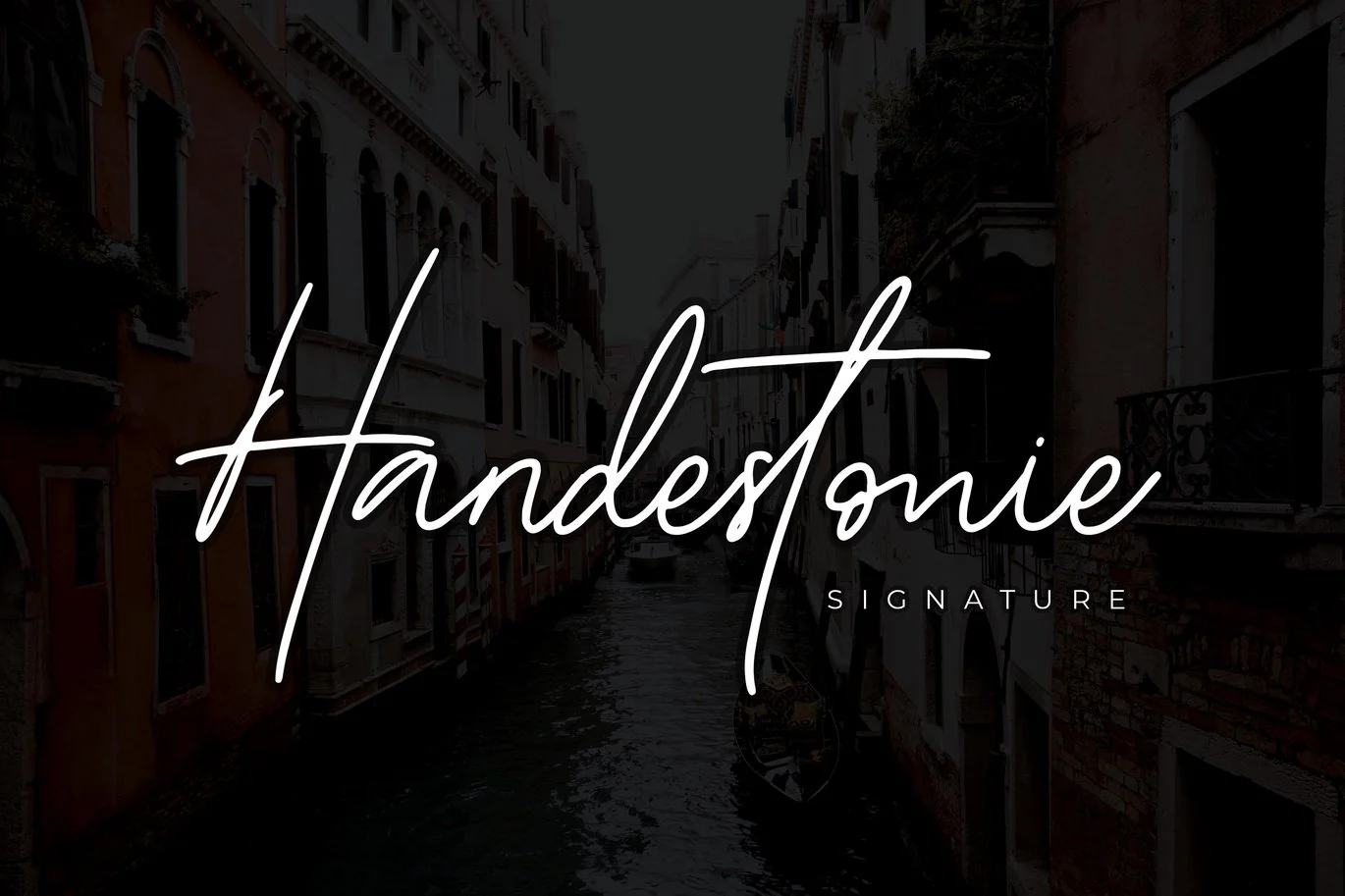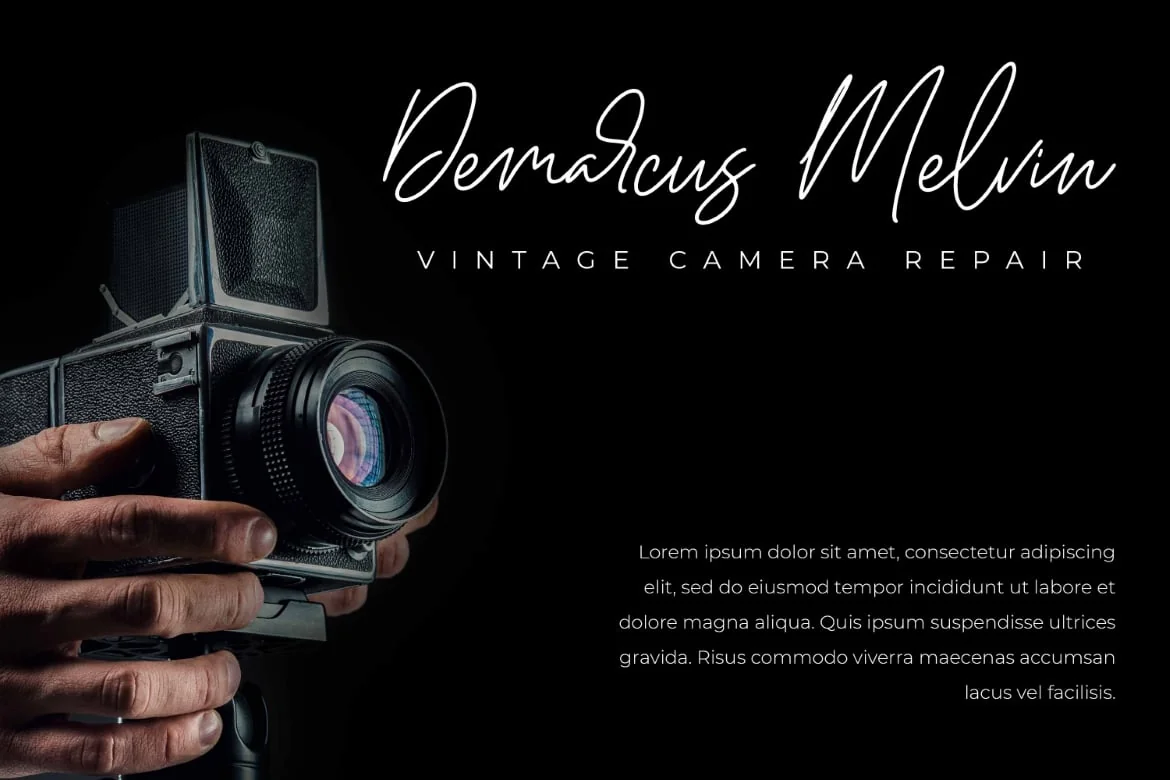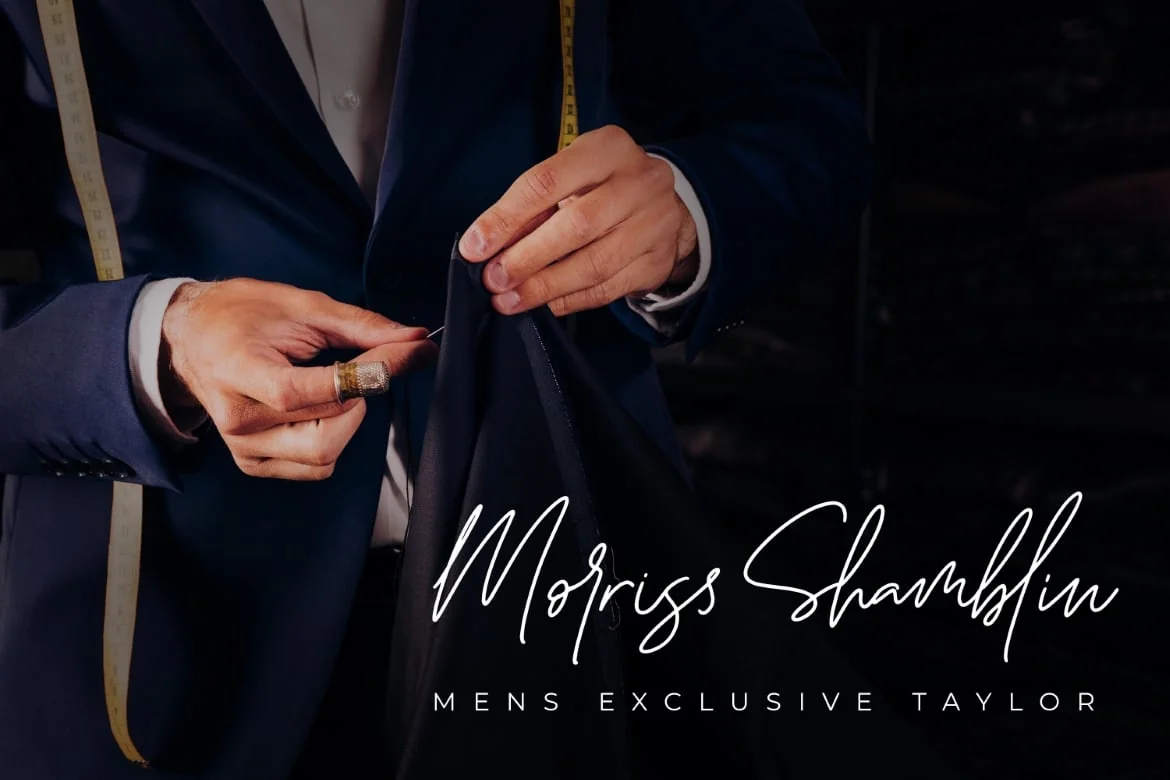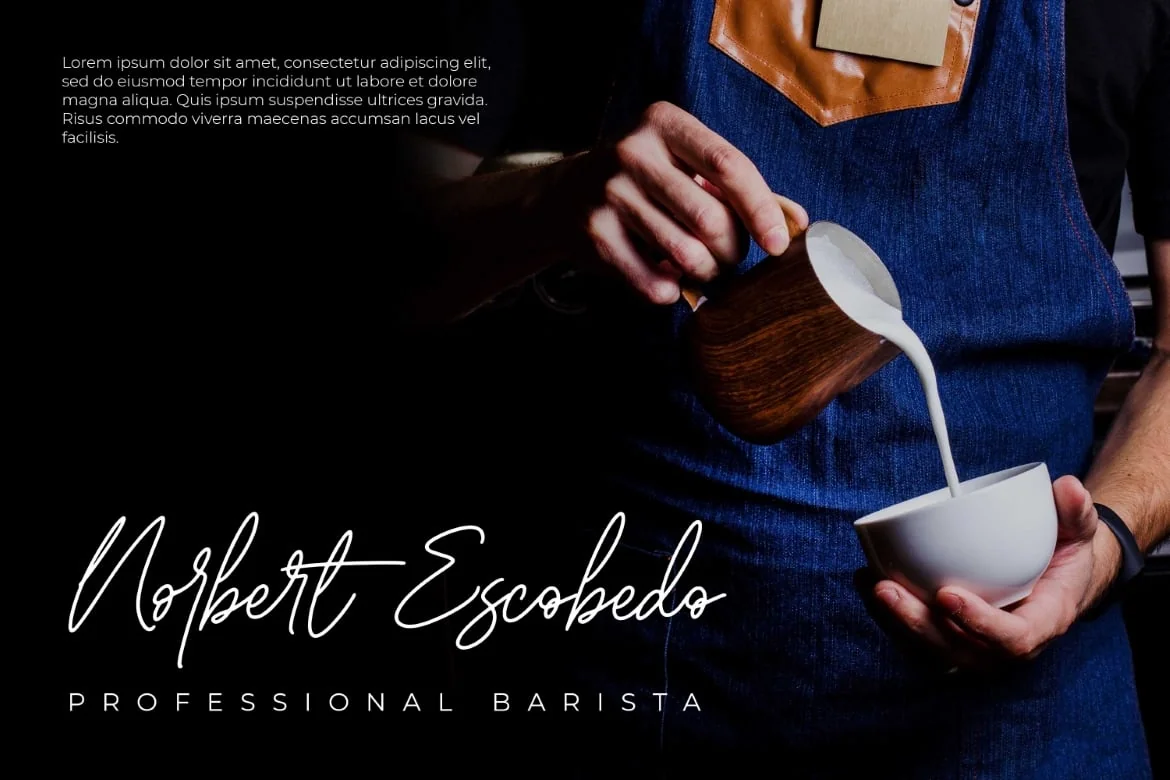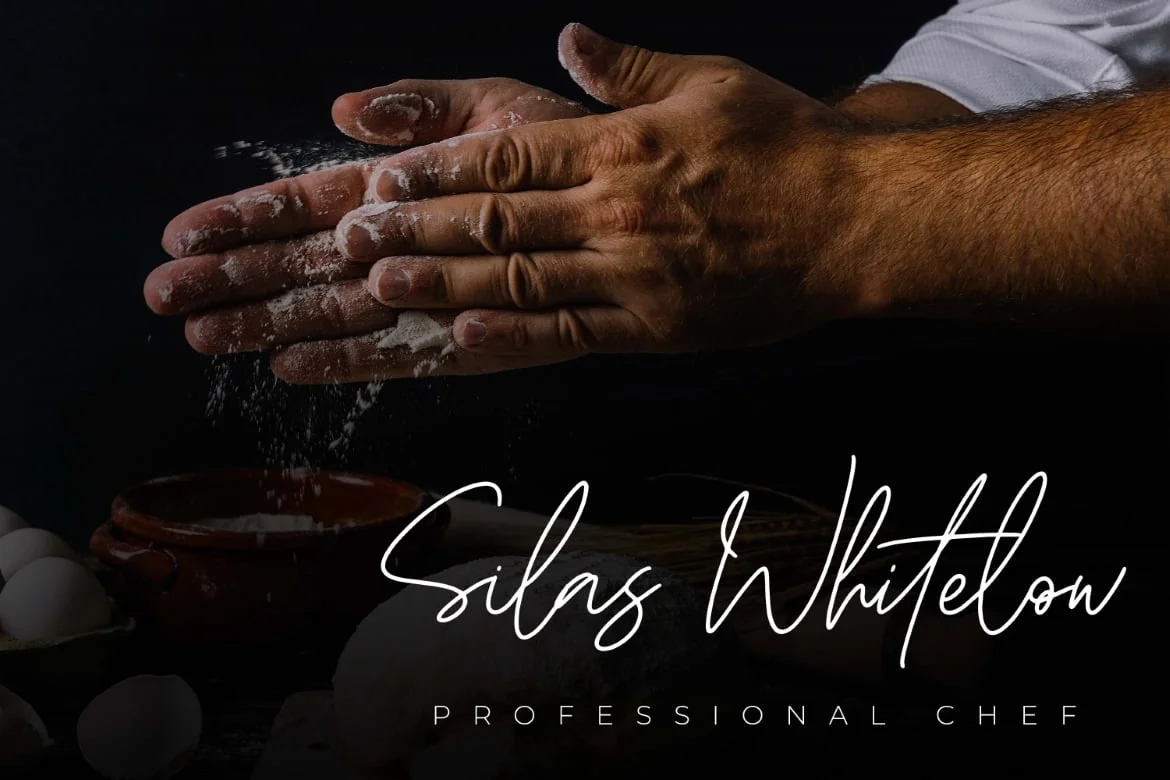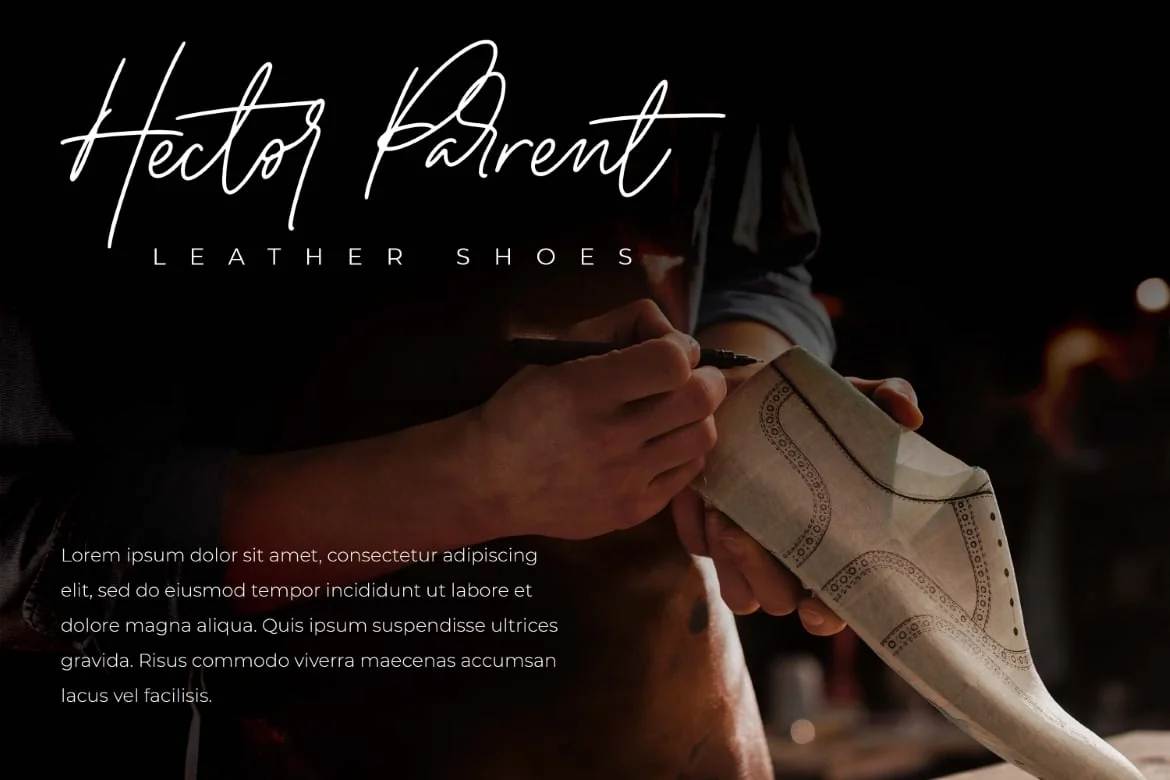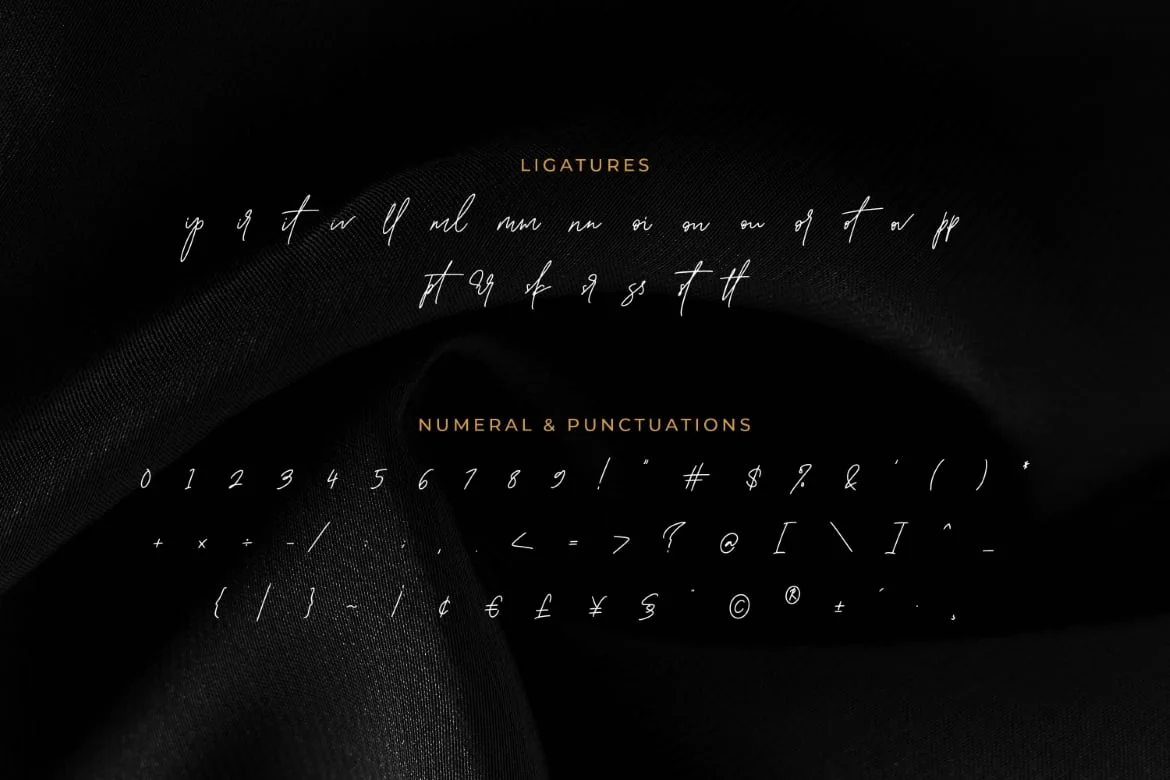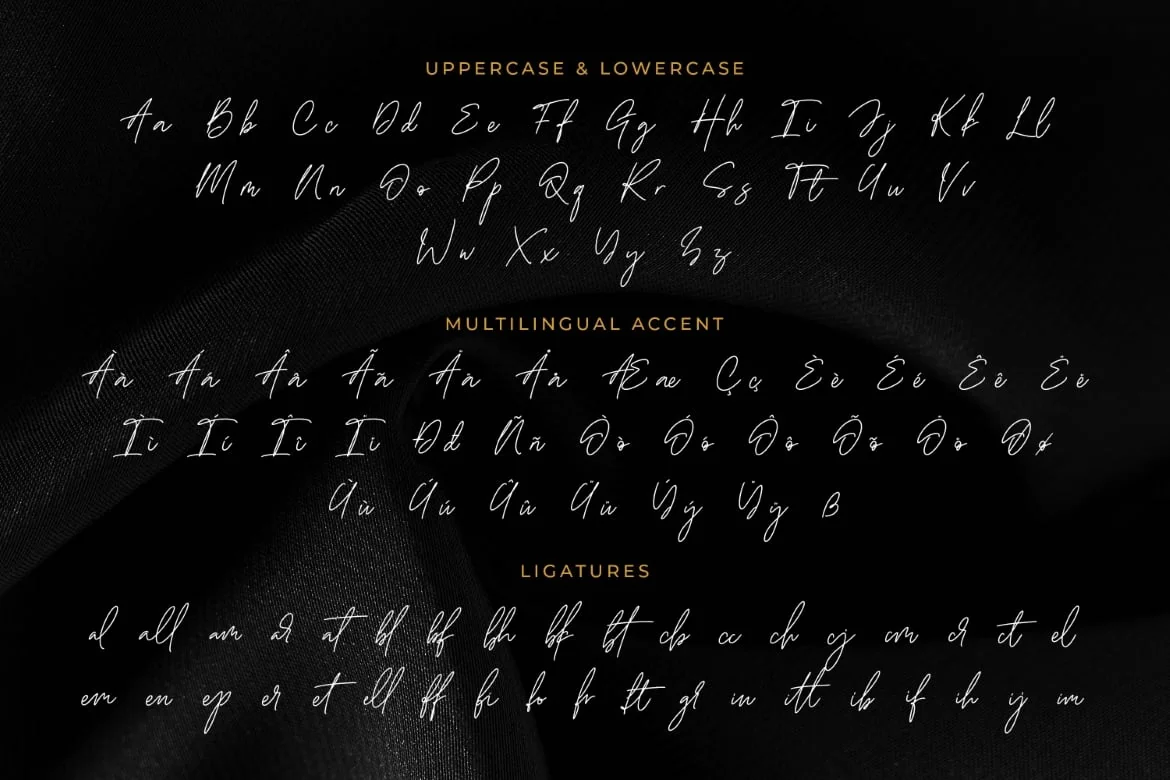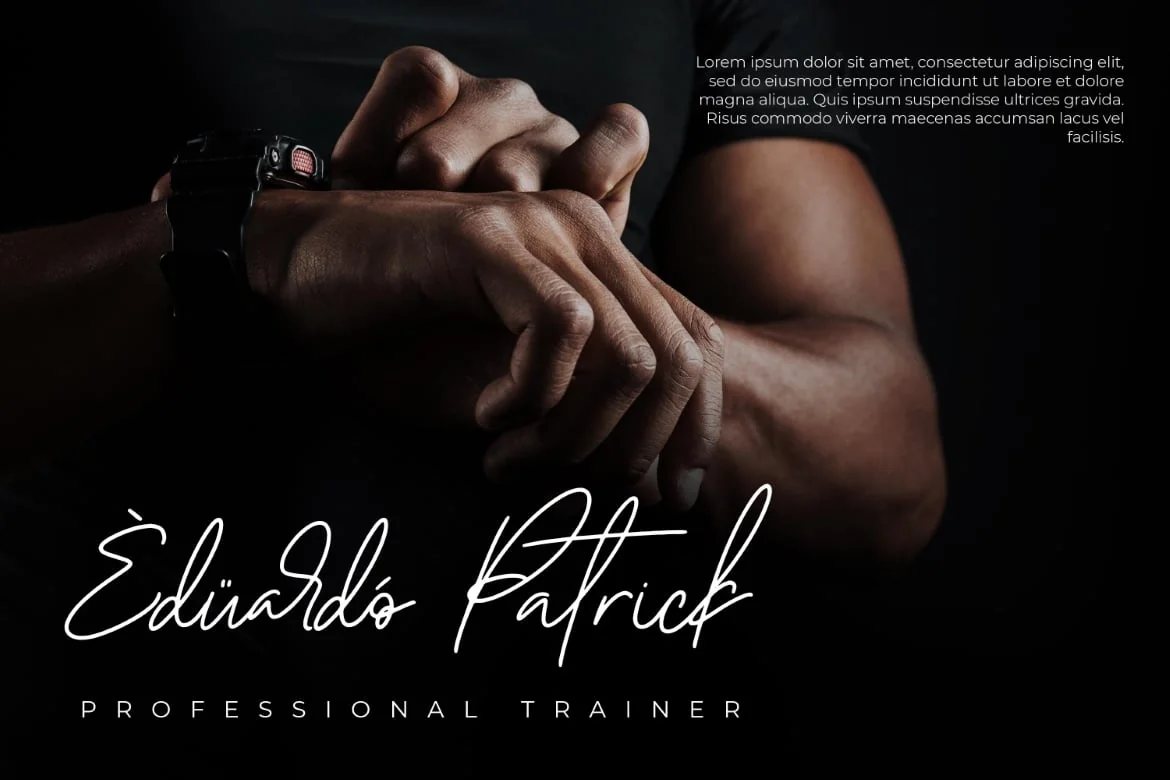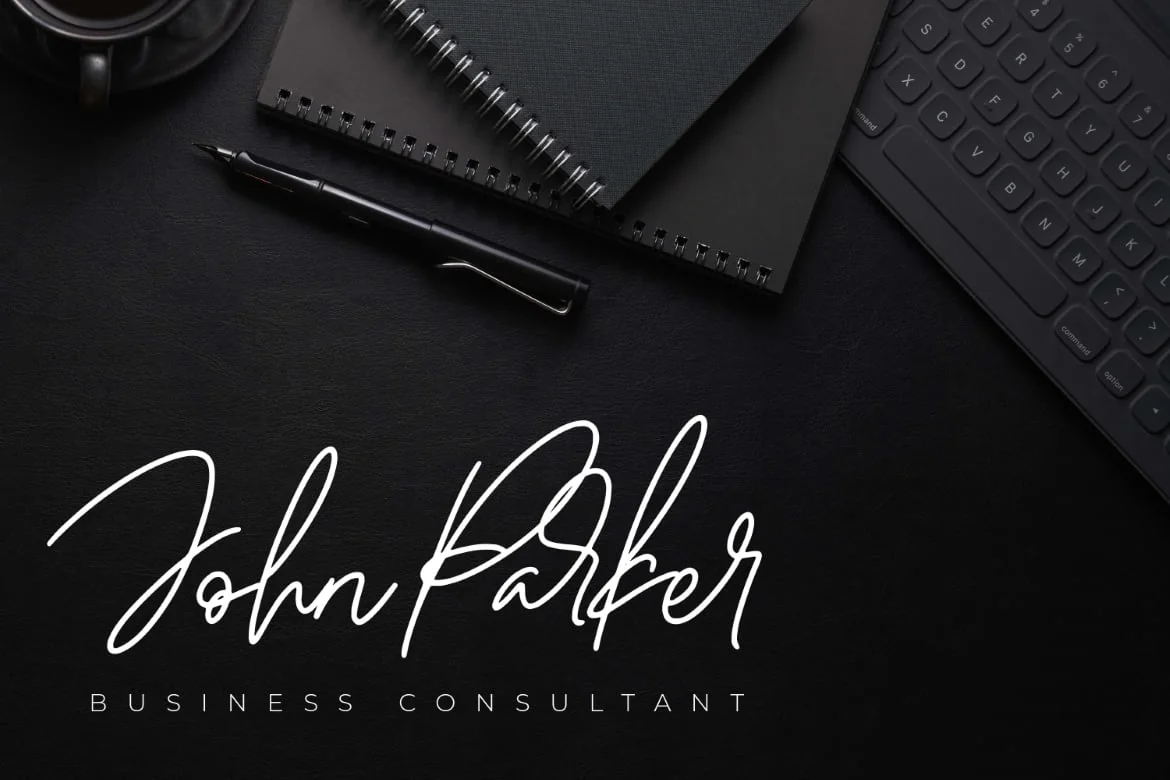
Handestonie – Signature Font
Handestonie – Signature Font and classy style, this font is great for your creative projects such as watermark on photography, and perfect for logos & branding, photography, invitation, watermark, advertisements, product designs, stationery, wedding designs,label, product packaging, special events or anything that need handwritting taste.
- Alternate glyphs
Fonts include multilingual support